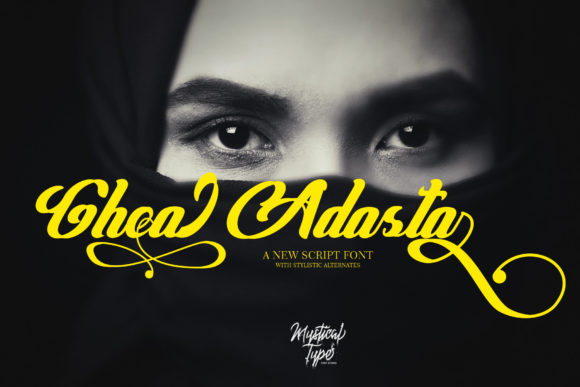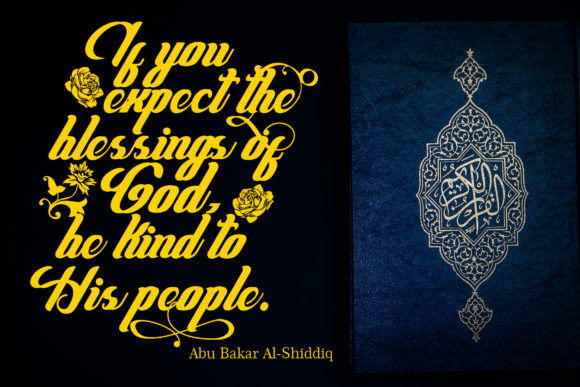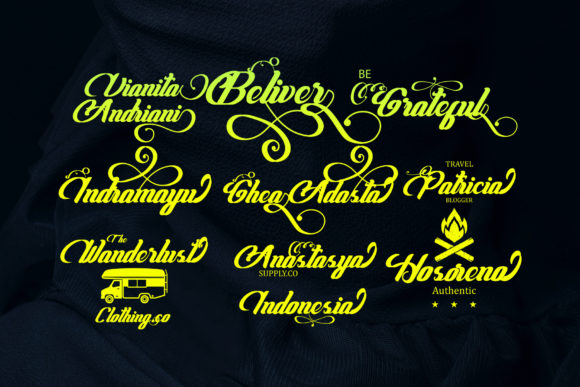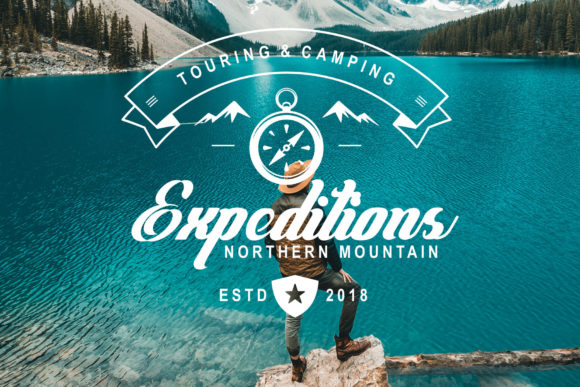
About Ghea Adasta Script Font
The Ghea Adasta is an amazing script, inspired by trendy typography. It has a handwritten touch and a bouncy baseline.
It’s perfect for logos, handwritten quotes, product packaging, headers, posters, merchandise, social media, greeting cards and every other design which needs a striking typeface.